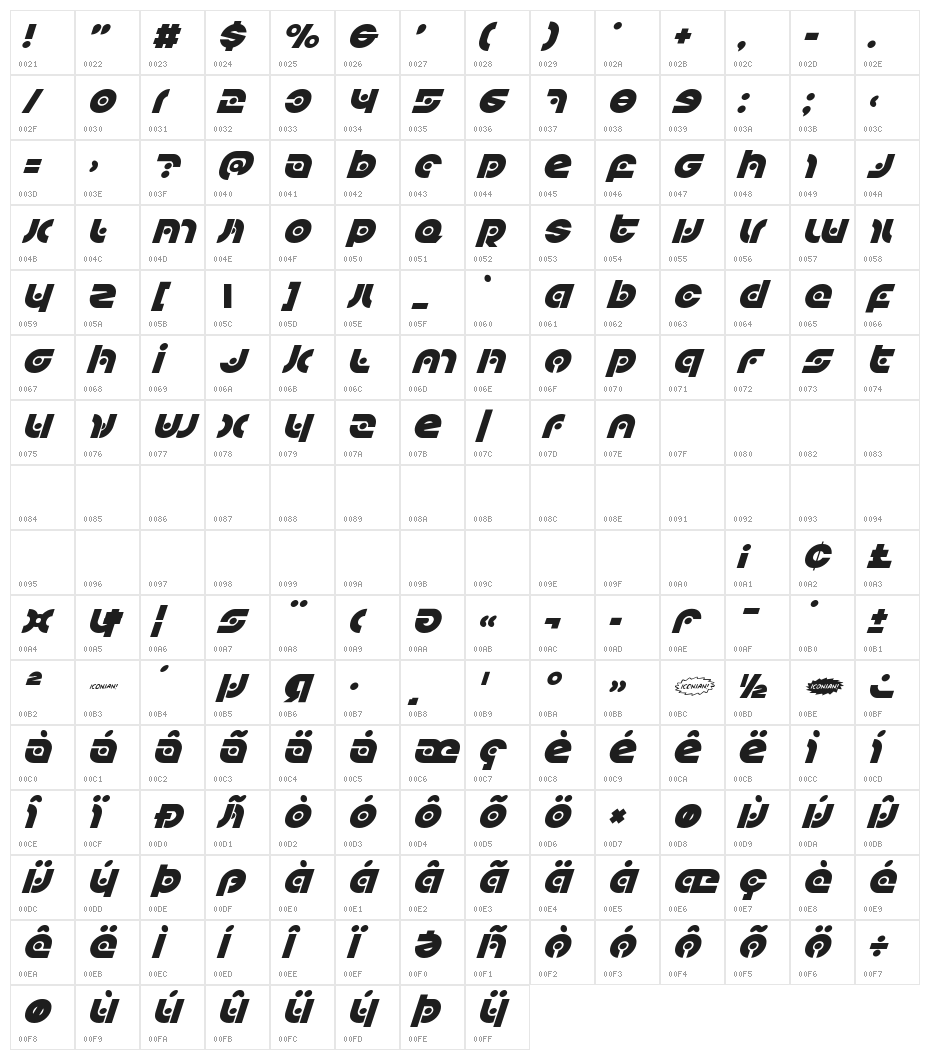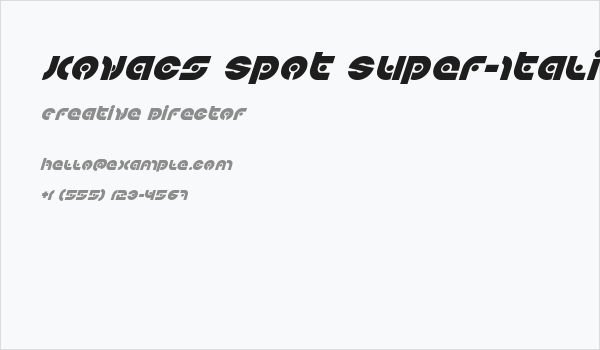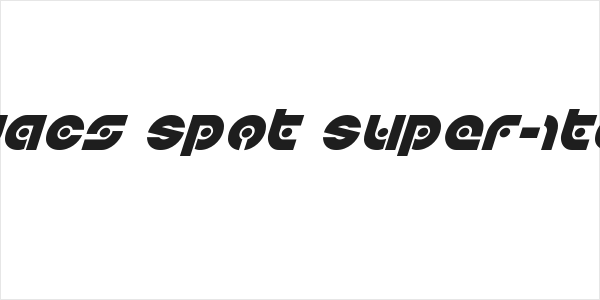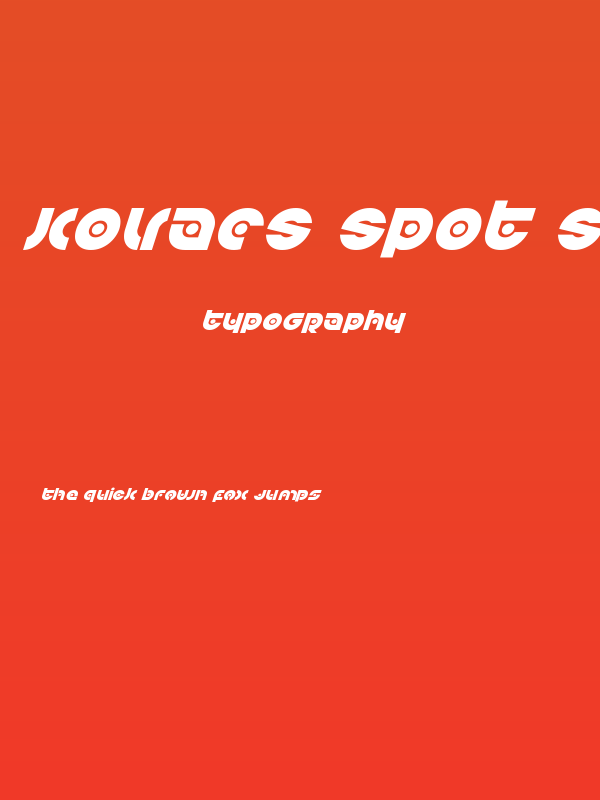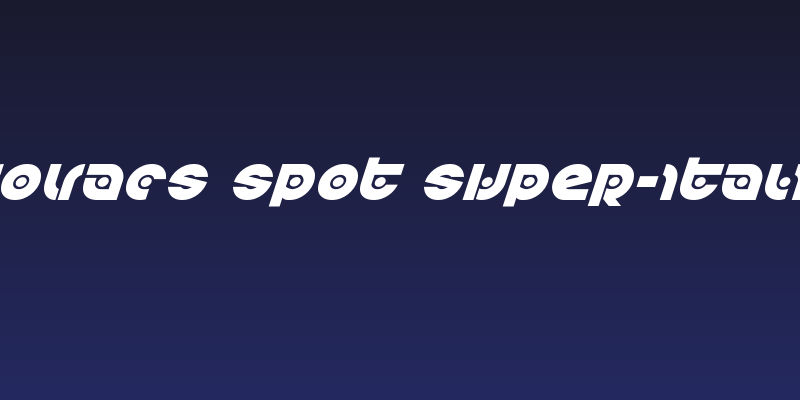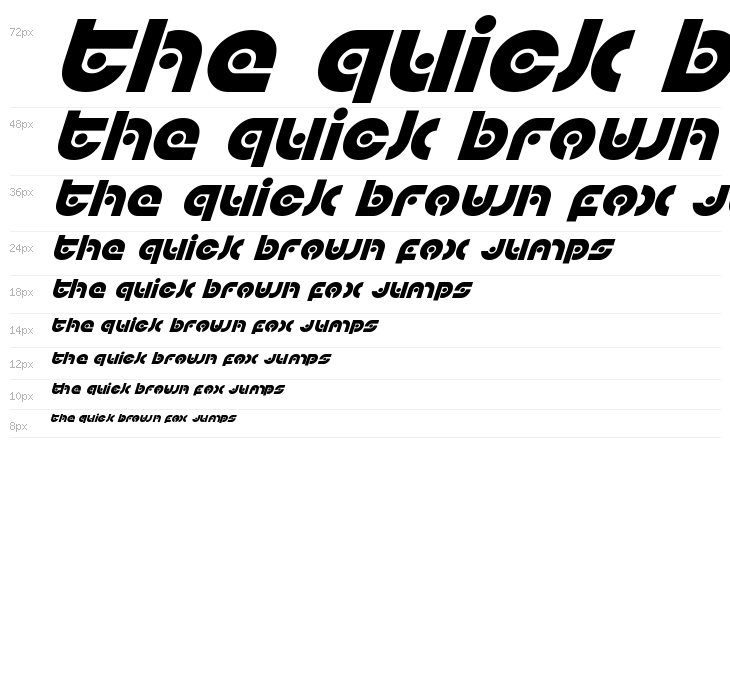
Kovacs Spot Super-Italic Font
Kovacs Spot Super-Italic Description
This font features a bold and dynamic style with a futuristic and geometric design. The characters are italicized, giving them a sense of motion and energy. The strokes are thick and consistent, creating a strong visual impact. The rounded edges and unique cutouts within the letters add a modern and distinctive flair. The font maintains a consistent weight throughout, ensuring readability while still being visually striking. Its boldness and unique style make it suitable for attention-grabbing headlines and branding projects.
| Proposed Projects | Ideal for modern branding, futuristic designs, technology-related projects, and eye-catching headlines. |